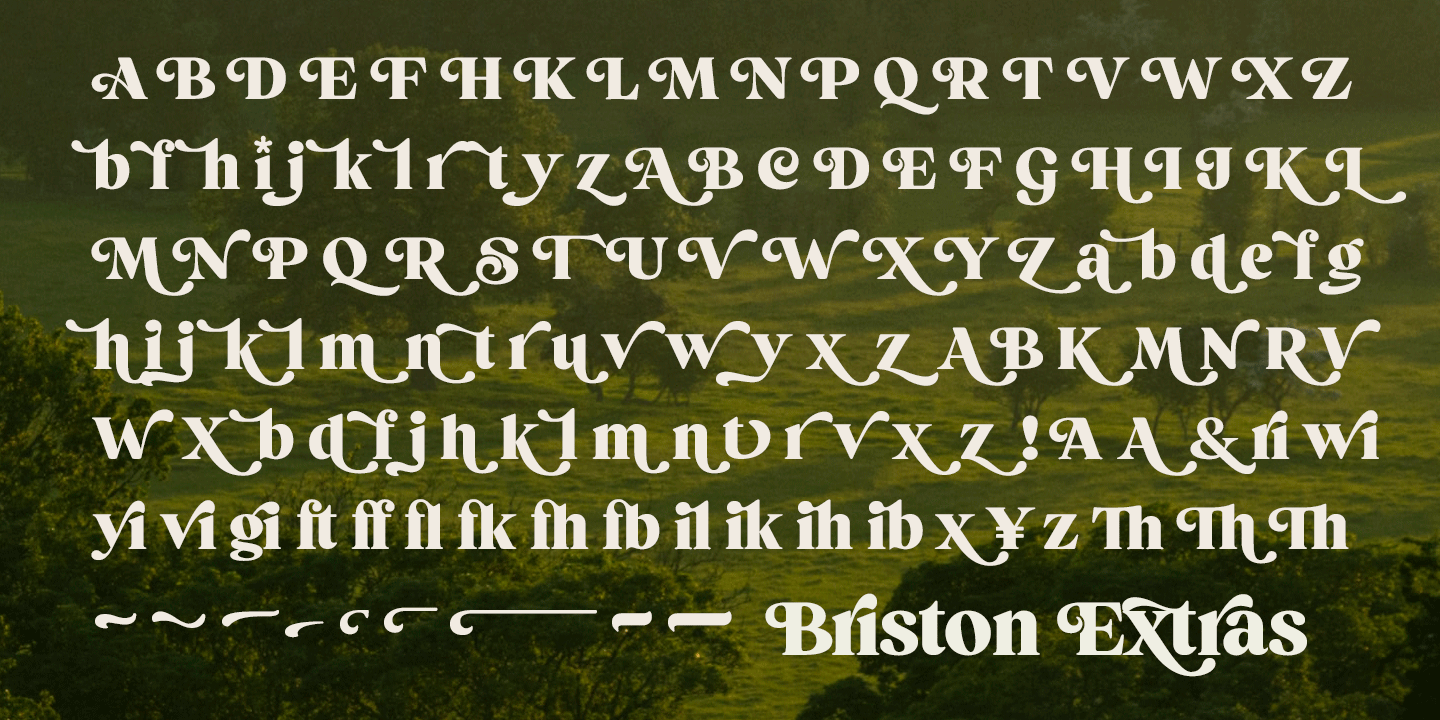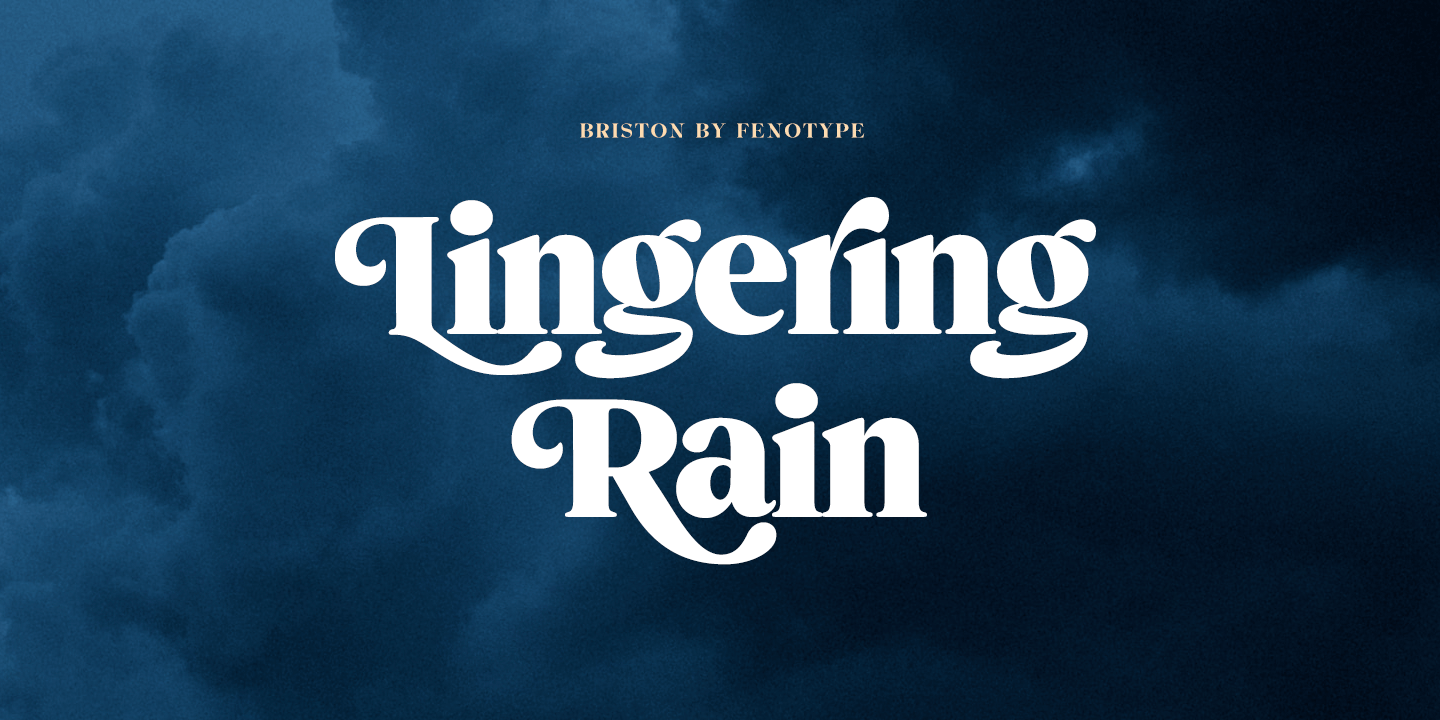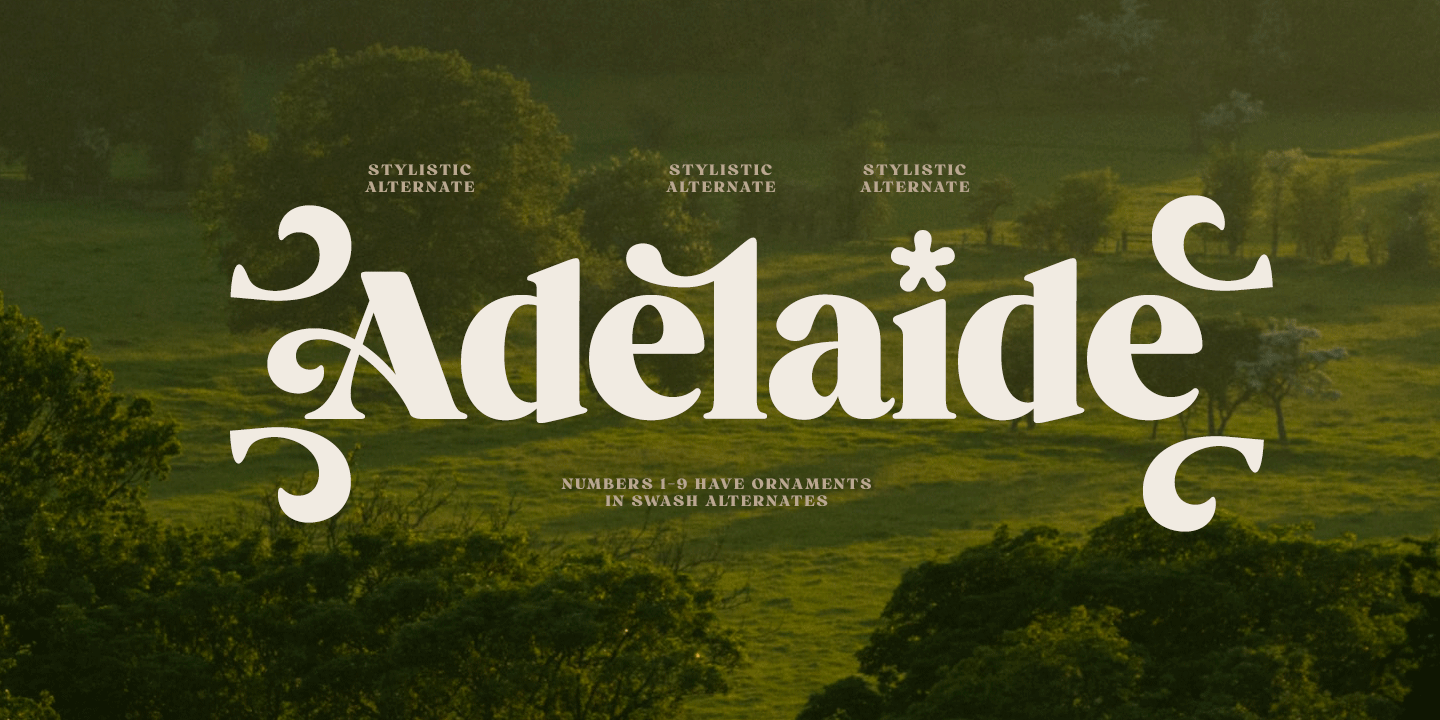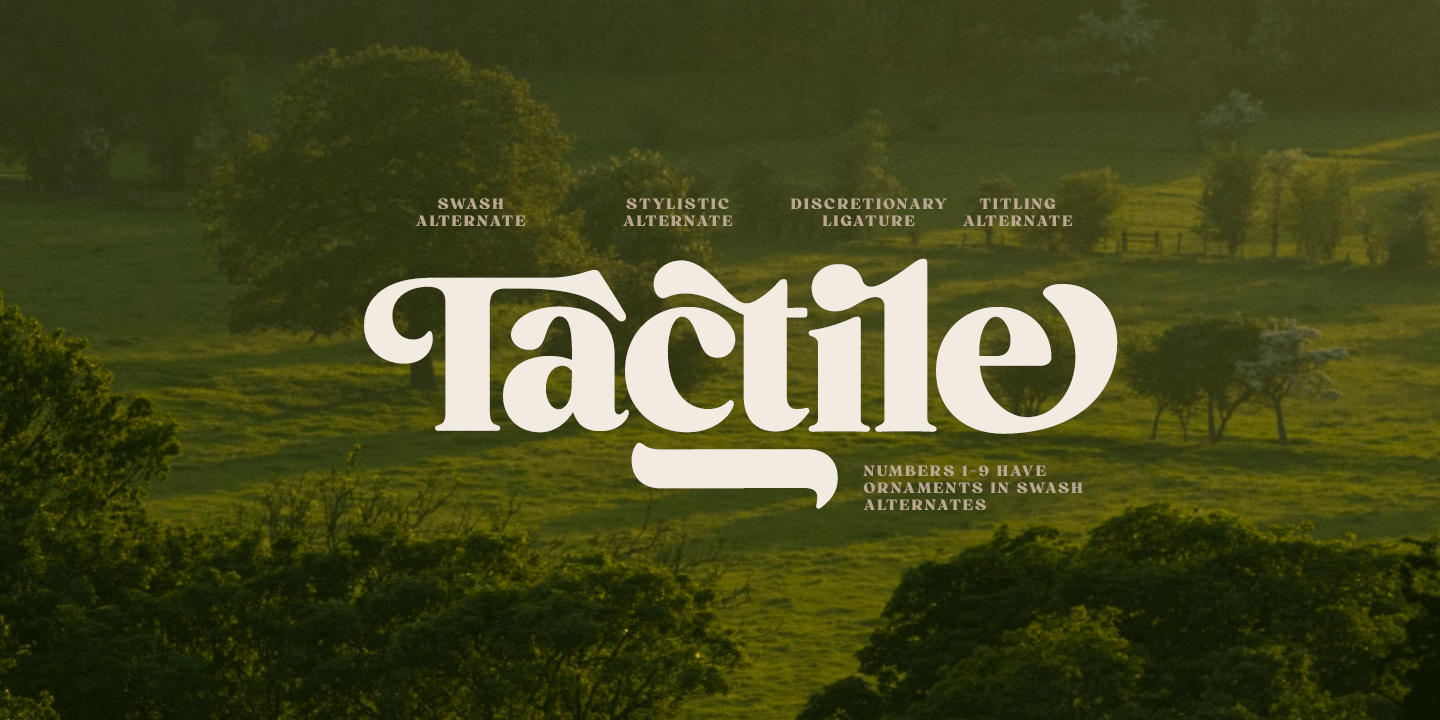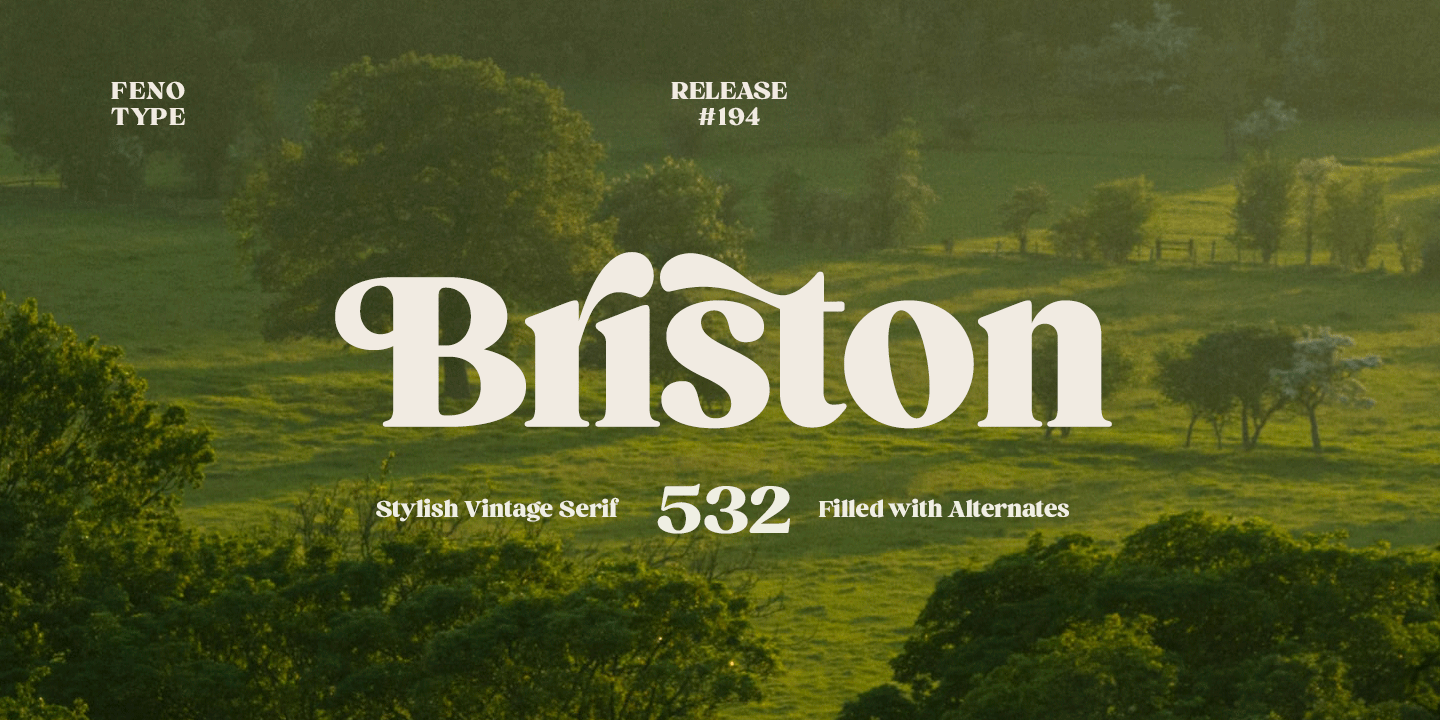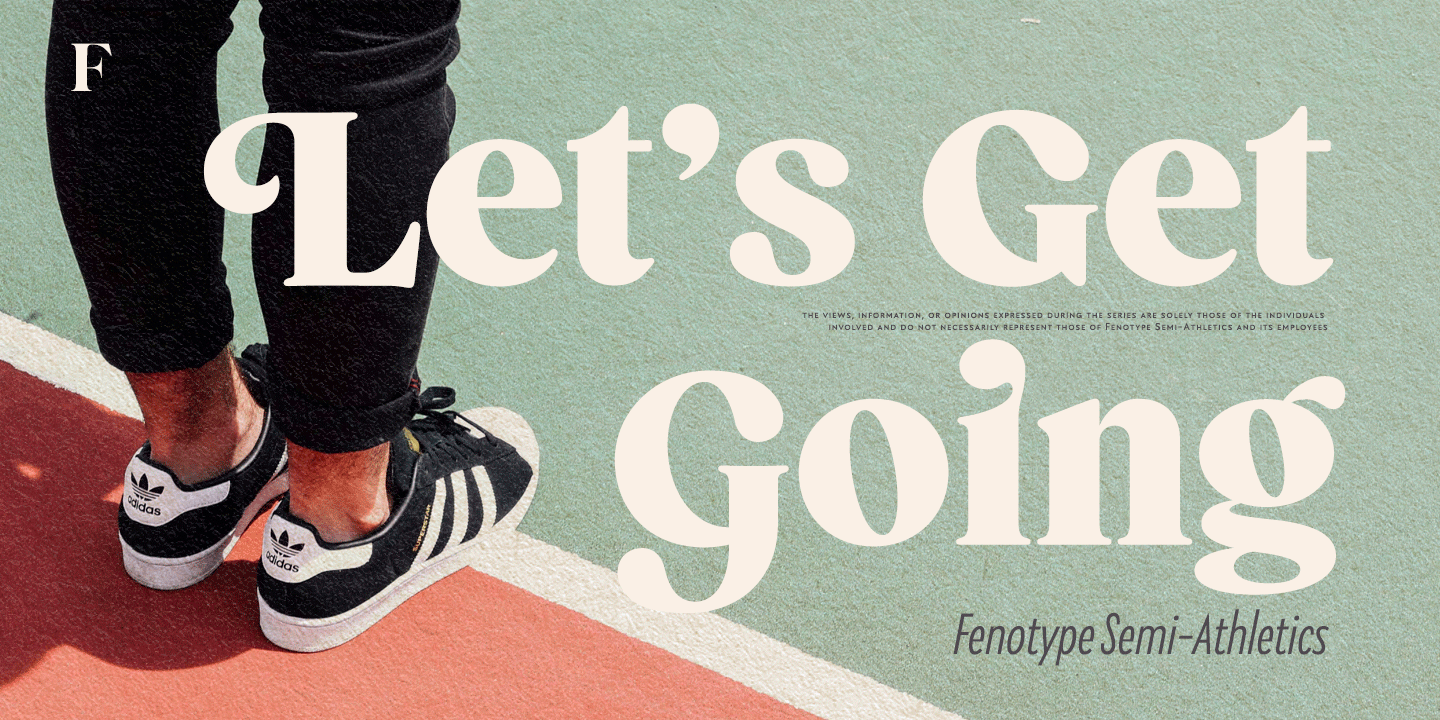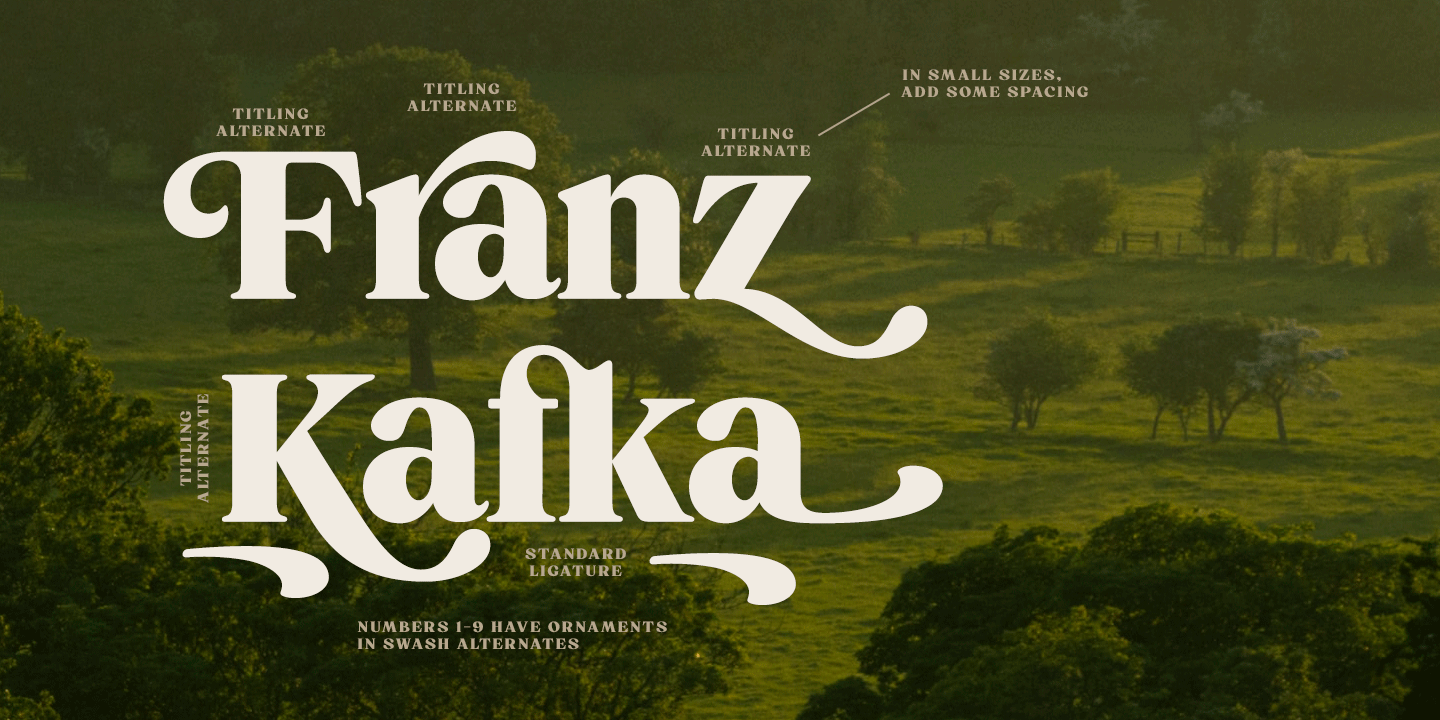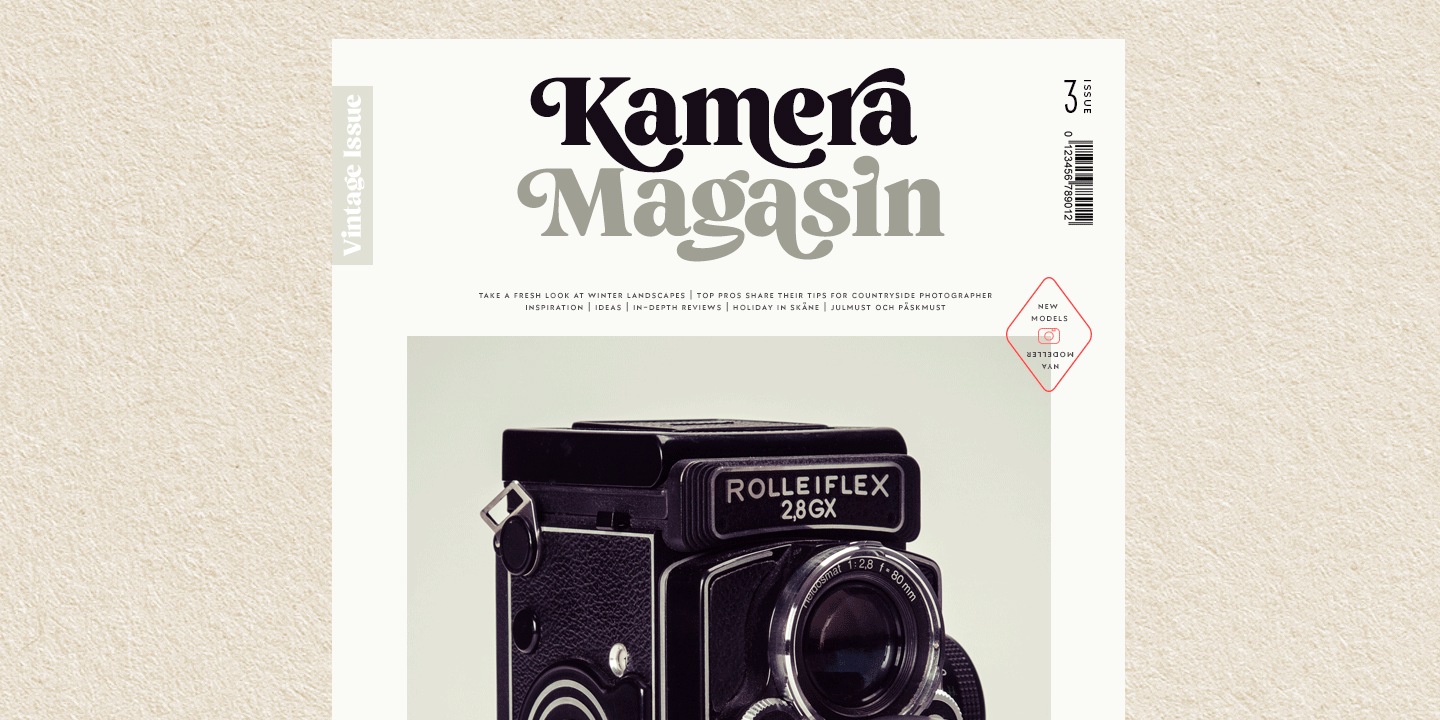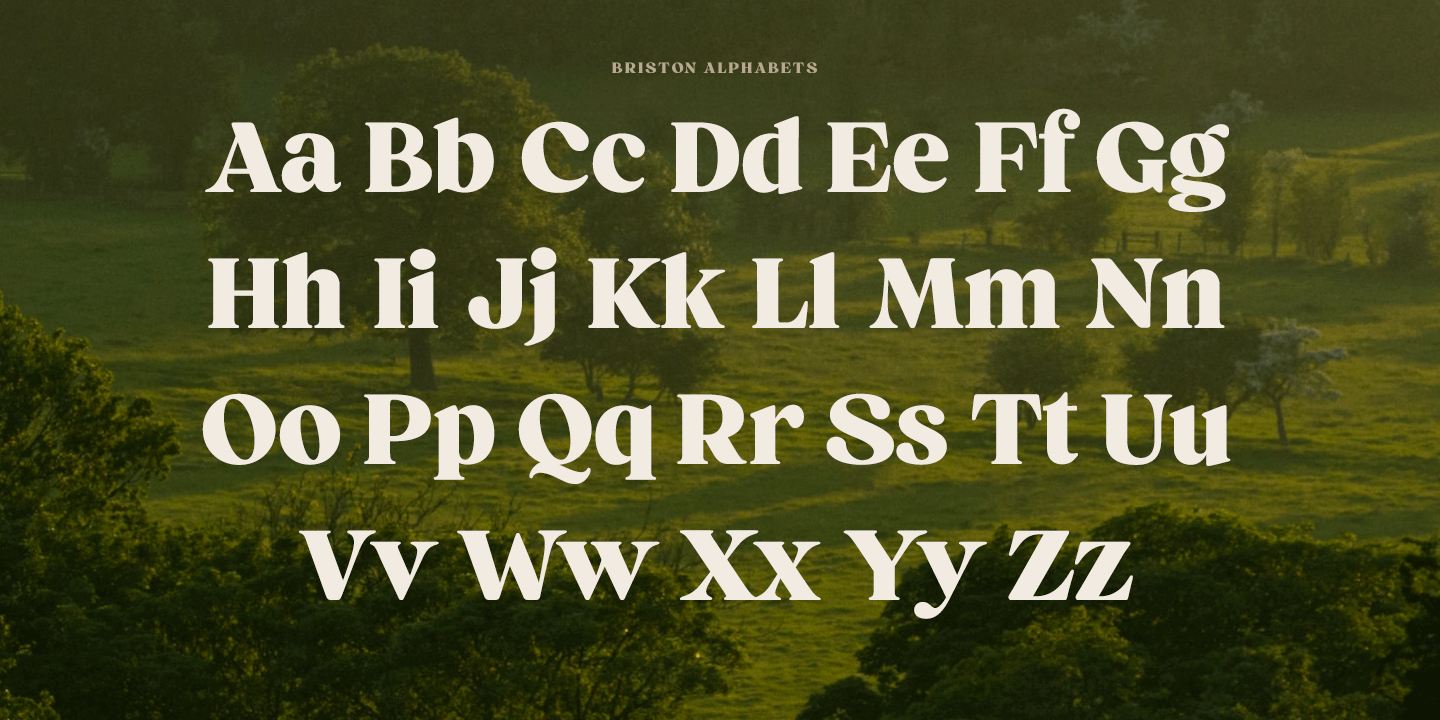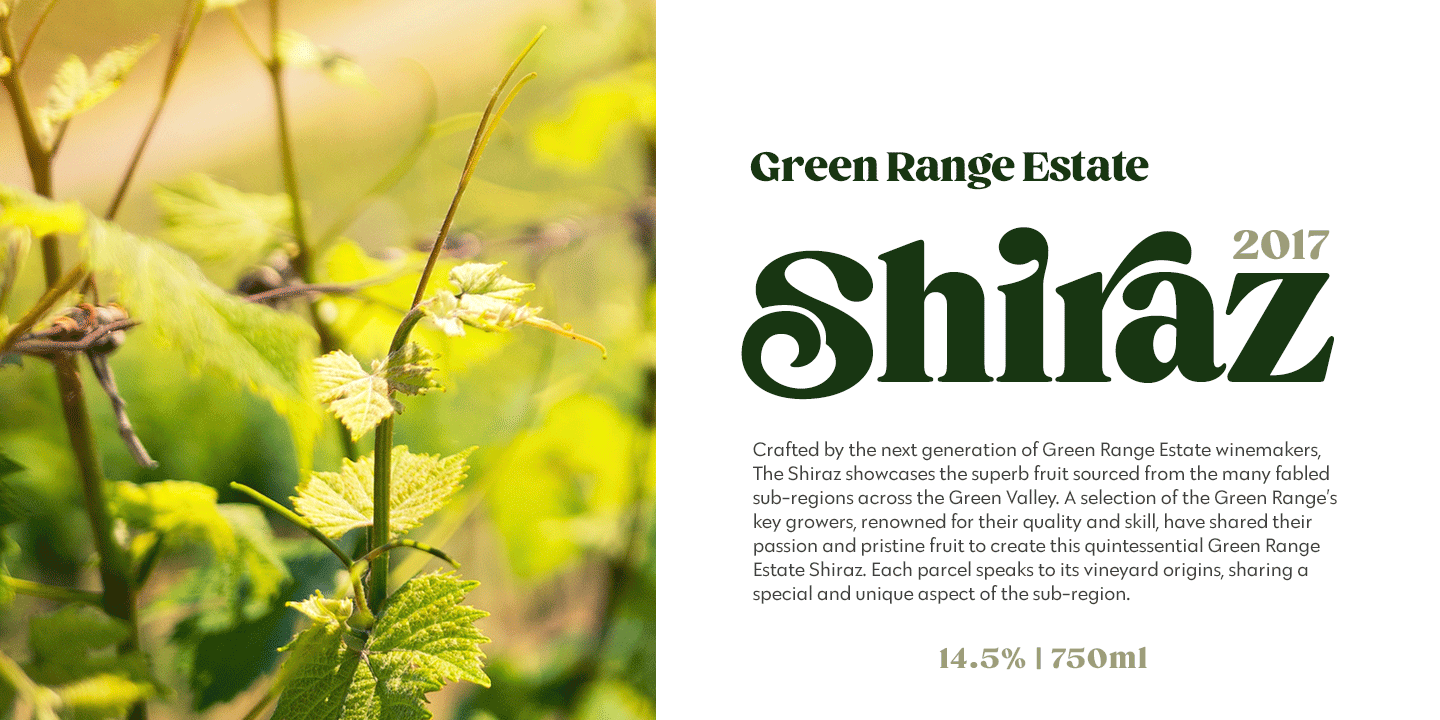
Briston (1 font)
Briston is and efficient typeface for headlines, logos and display use. You can also try using Briston all caps in really small sizes by adding some spacing.